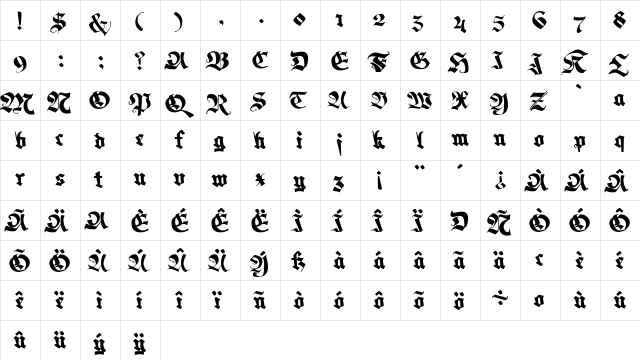
Memela Fraktur Regular
| Designer | Luis Fernando Carvente |
Design Context for Memela Fraktur Typeface
Memela Fraktur channels the dramatic heritage of Fraktur and Gothic scripts, bringing a sense of historical gravitas to any design.
Well-suited to band logos, craft beer branding, tattoo lettering, and heritage-themed identities.
Font Pairing: Pair with a clean neutral sans-serif for body copy to let Memela Fraktur's character lead without overwhelming the composition.
Pro Tip: Use Memela Fraktur sparingly at large sizes. Even a single word set in blackletter can define the visual register of an entire design.